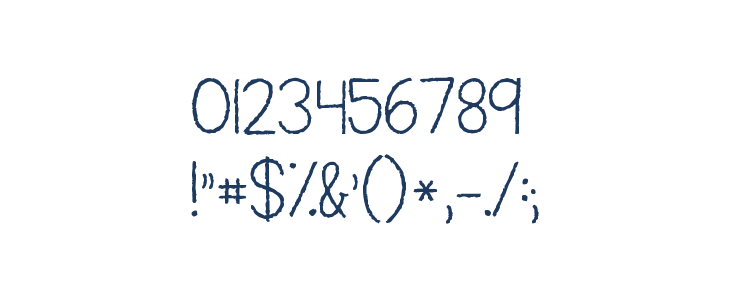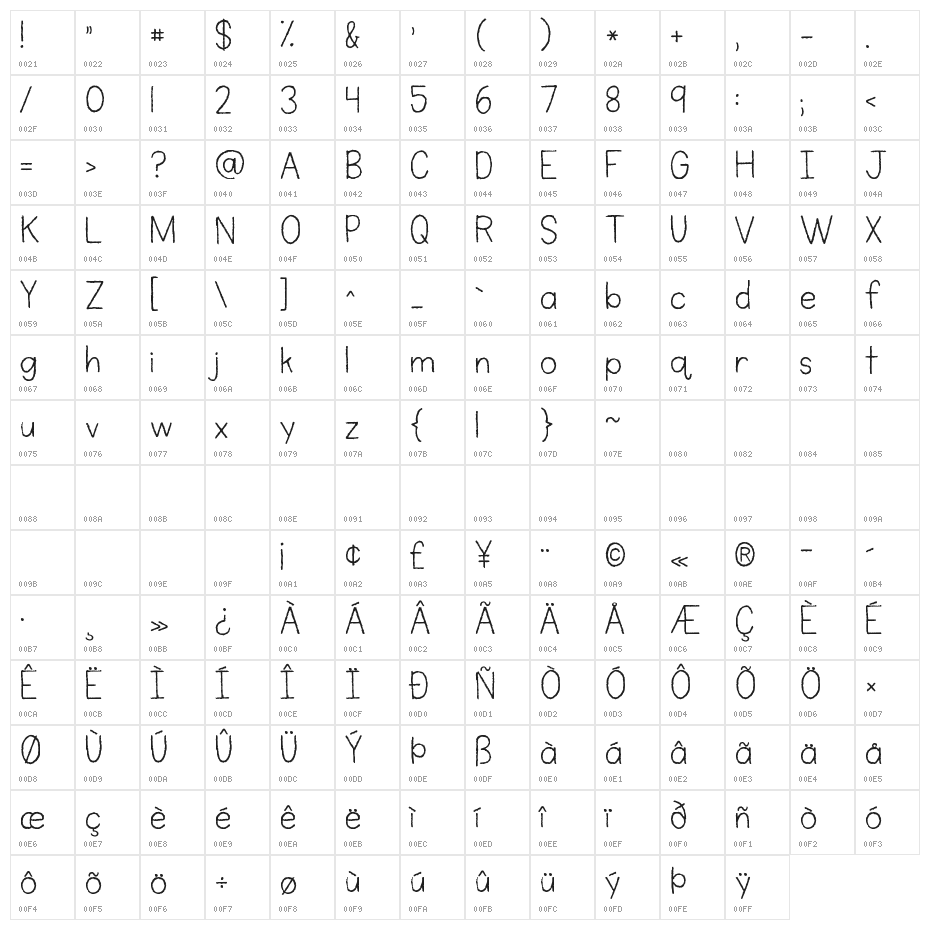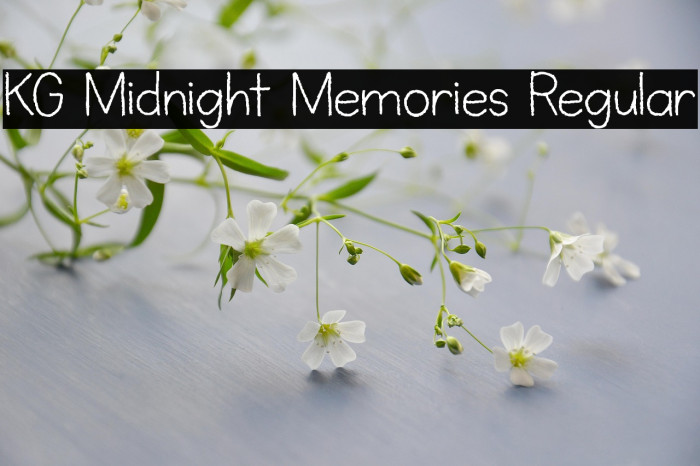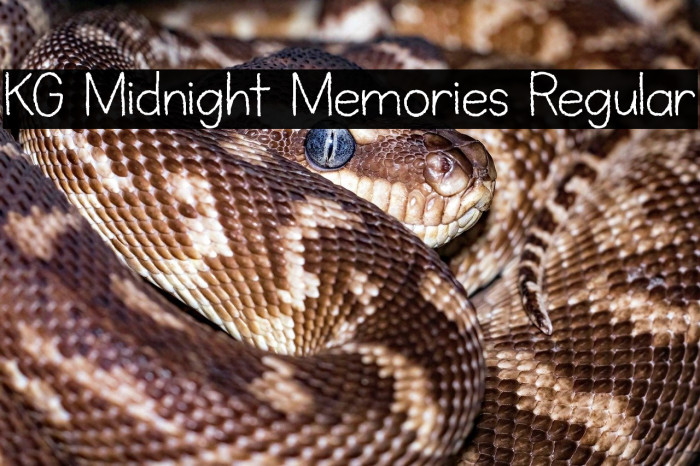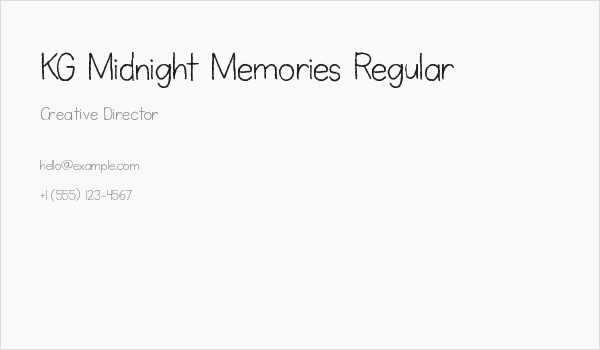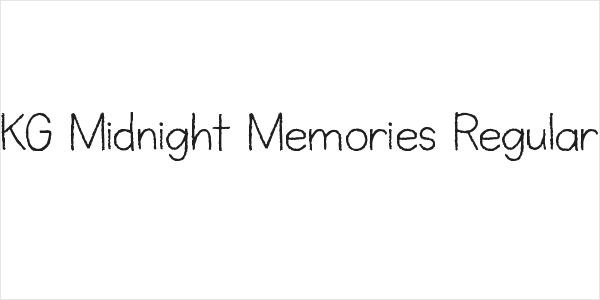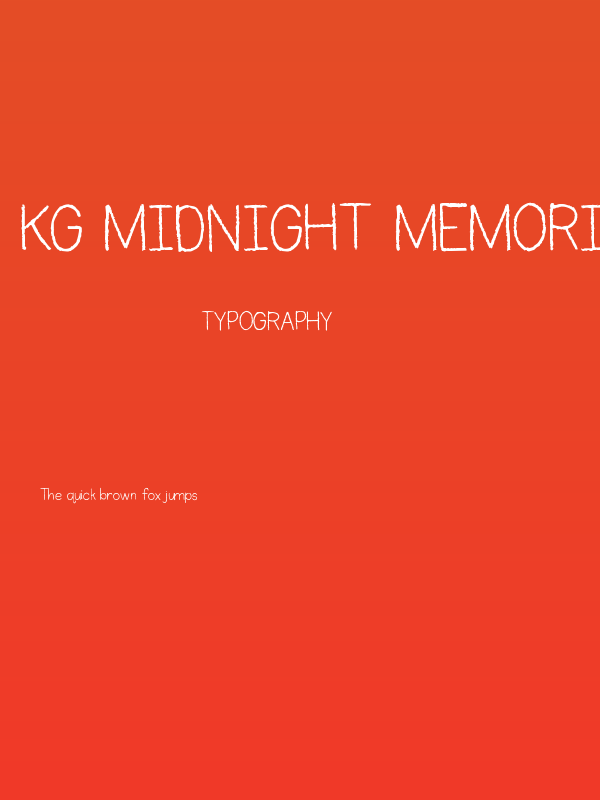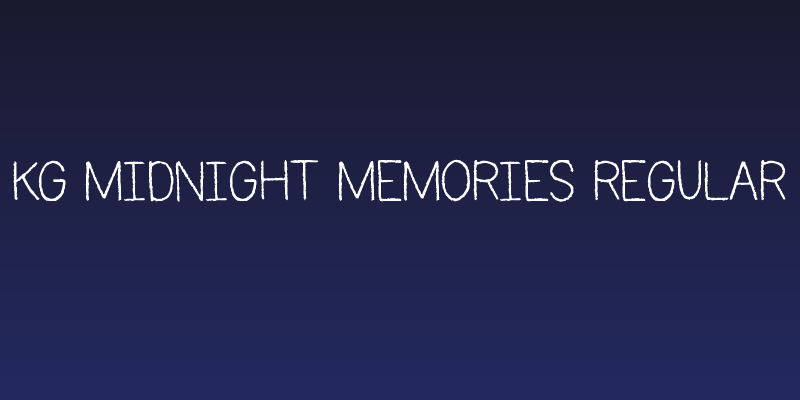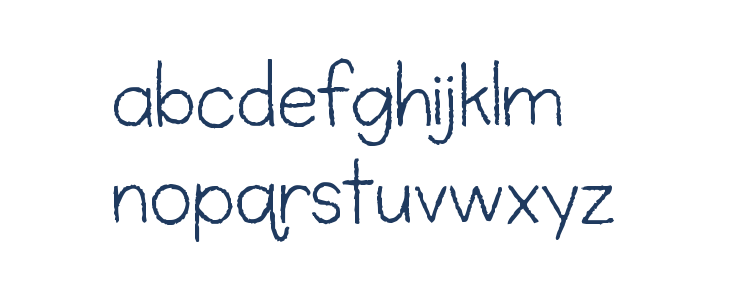
KG Midnight Memories Regular Font
KG Midnight Memories Regular Description
This font features a playful and casual handwritten style, characterized by its uneven strokes and slightly irregular letterforms. The uppercase and lowercase letters maintain a consistent flow, giving it a natural and approachable appearance. The numerals and special characters are crafted with the same informal touch, making it suitable for projects that require a personal or whimsical feel. The overall texture is reminiscent of chalk or crayon, adding to its charm and versatility.
| Proposed Projects | Ideal for greeting cards, children's books, informal invitations, and creative posters. |